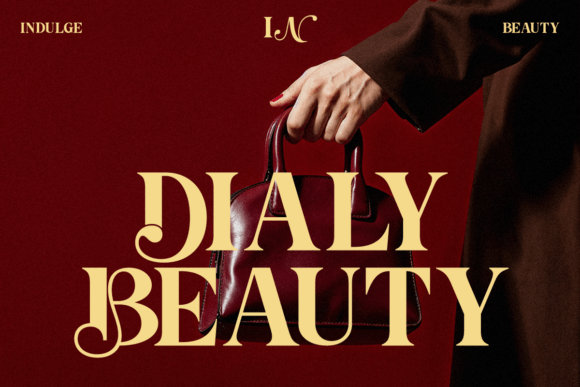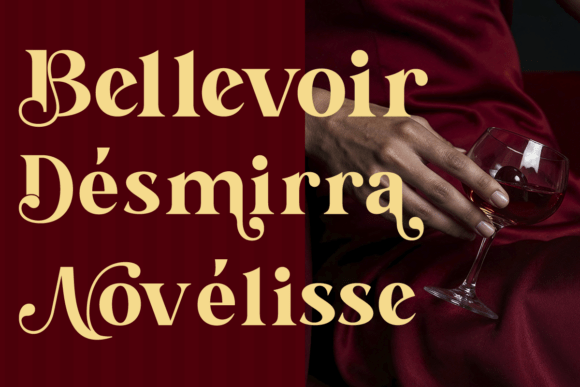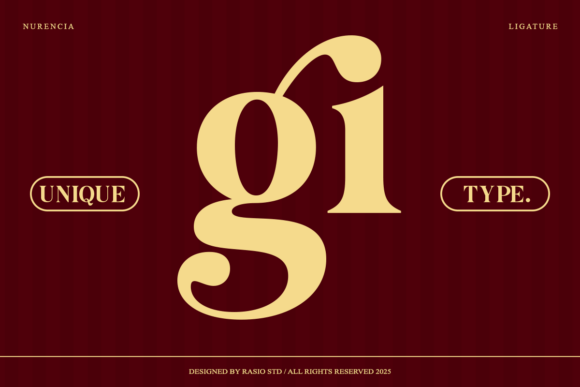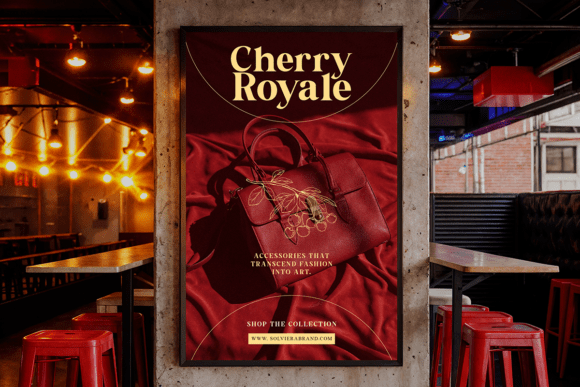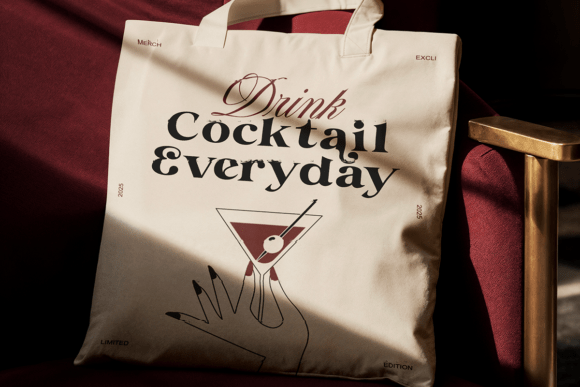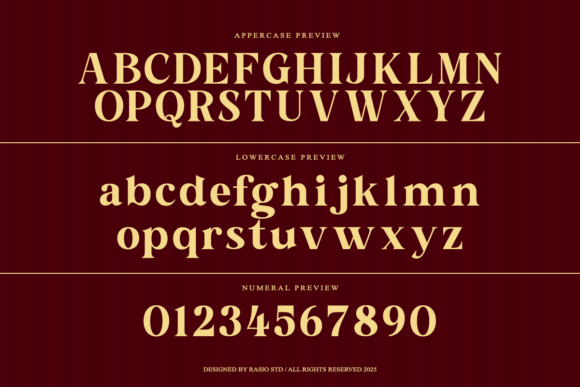
Introduction to Nurencia Font
As a designer, there’s nothing quite like the thrill of bringing a creative project to life. It’s that moment when you’re brainstorming ideas, sketching out concepts, and experimenting with different fonts – and then, suddenly, everything clicks into place. For many designers, that ‘aha’ moment is made all the sweeter with the perfect font. Enter Nurencia Font, an elegant decorative display serif font designed to elevate your typography to new heights.
With its refined character and luxurious aesthetic, Nurencia Font is the ultimate design resource for high-end projects. Whether you’re working on a premium logo, a high-quality editorial design, or a creative project that demands attention, this versatile font is sure to deliver. Its stylish serif structure and artistic swashes make it a standout choice for designers seeking to add a touch of sophistication to their work.
Key Features of Nurencia Font
- Unique, handcrafted font with a transparent background, perfect for adding a personal touch to designs
- Size: Includes multiple font sizes and styles, allowing for flexibility in design
- Perfect for use in creative projects, including graphics, logos, and typography
Honest Review: Nurencia Font
Here are some of the things that work well with the Nurencia Font:
- ✨ Its transparent background makes it easy to use with any image or design element.
- ✨ The font is highly customizable, allowing me to adjust the size, color, and style to fit my project’s needs.
- ✨ The font is available in a range of weights, from light to bold, making it perfect for headings and body text.
While the Nurencia Font is a great resource, I do have a few minor complaints:
- ⚠️ The font could benefit from more language support, as it currently only includes Latin and Cyrillic scripts.
- ⚠️ The font may not be suitable for extremely large or complex projects, as it can become difficult to manage and maintain.
Tips for Getting the Most Out of Nurencia Font
To get the most out of Nurencia Font, use it with a transparent background to create visually appealing designs. Experiment with different font sizes, colors, and combinations to find the perfect look for your creative project.
Nurencia Font is perfect for various creative projects, including:
- Logo creation
- Typography-based designs